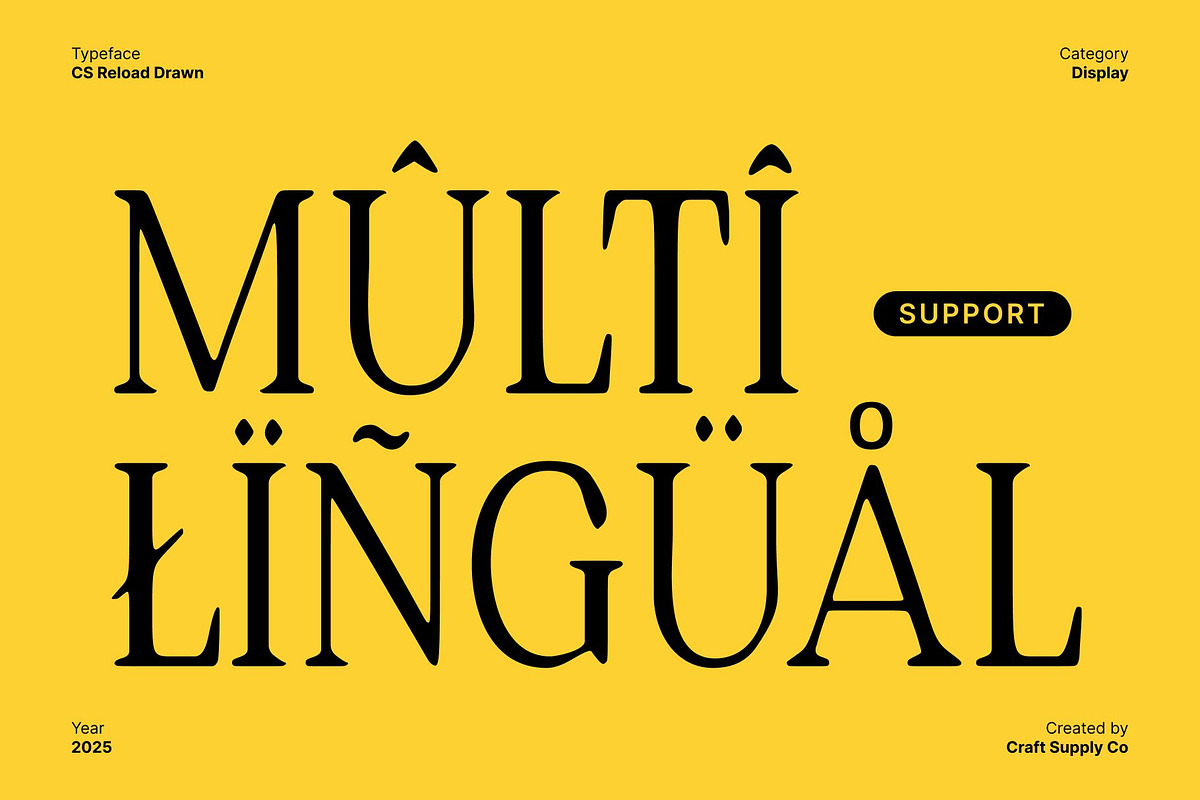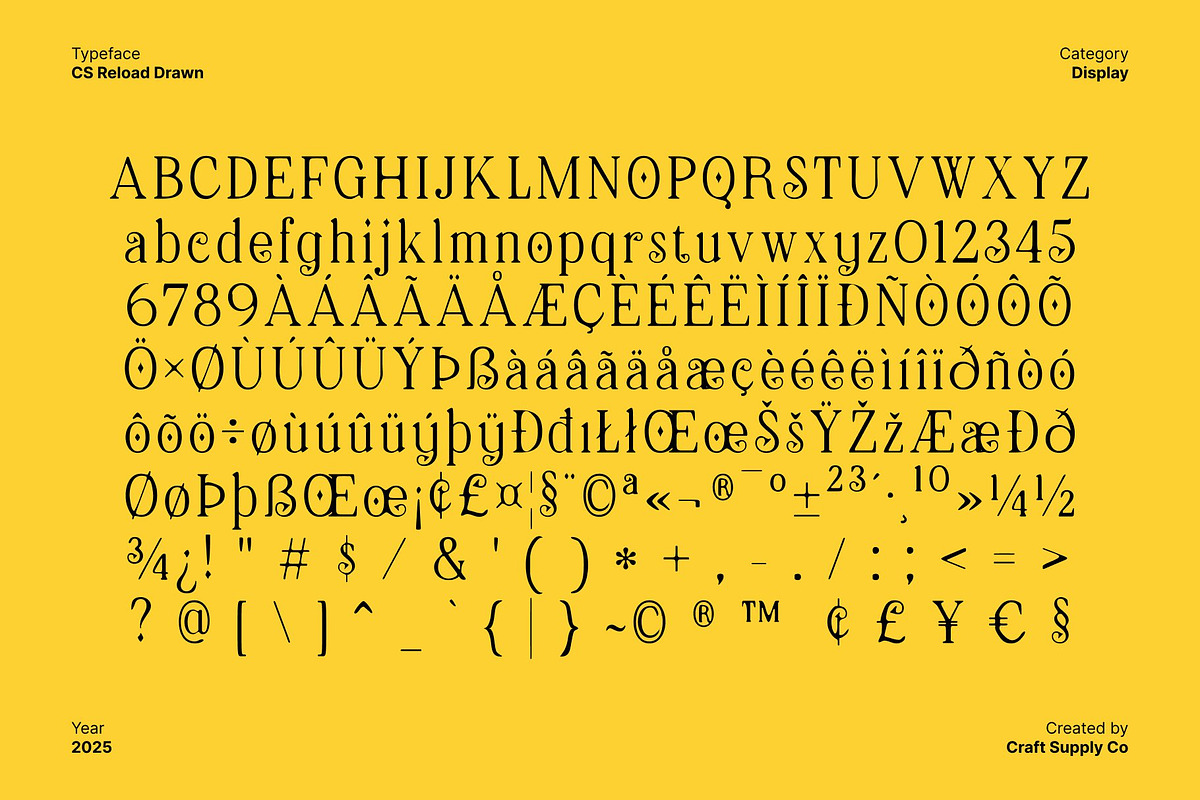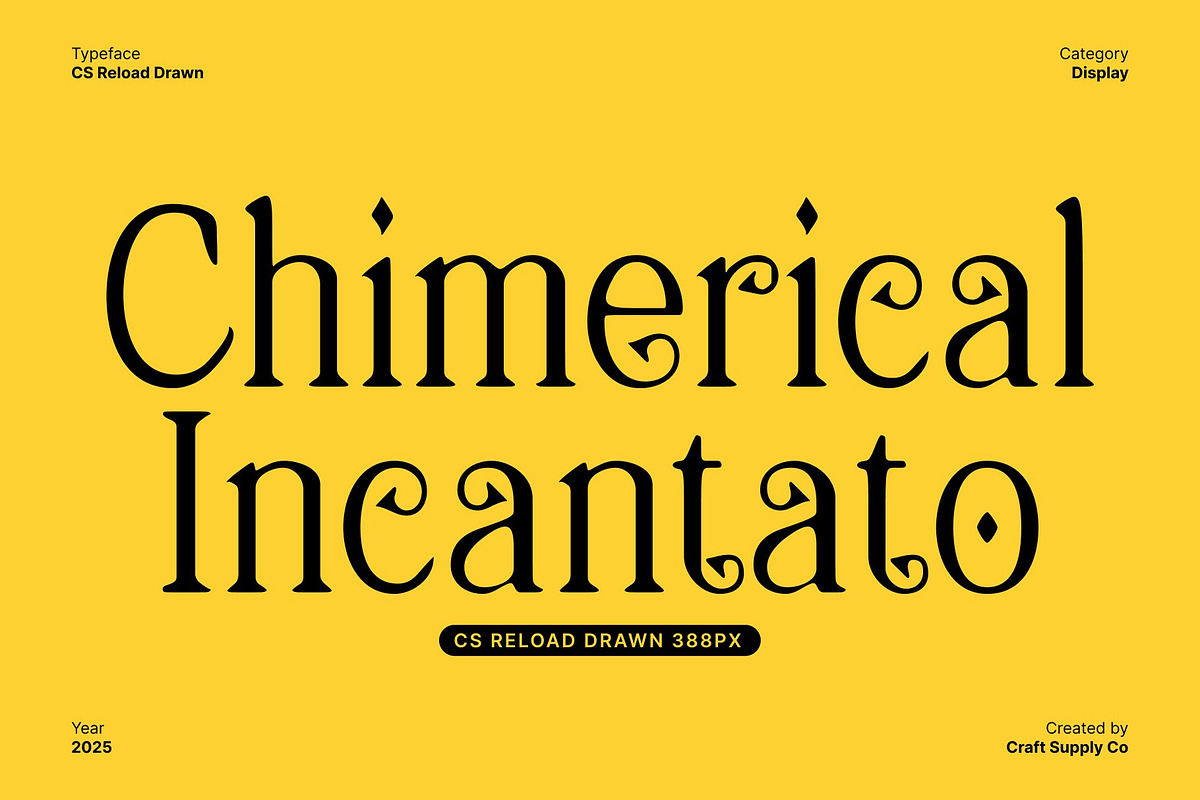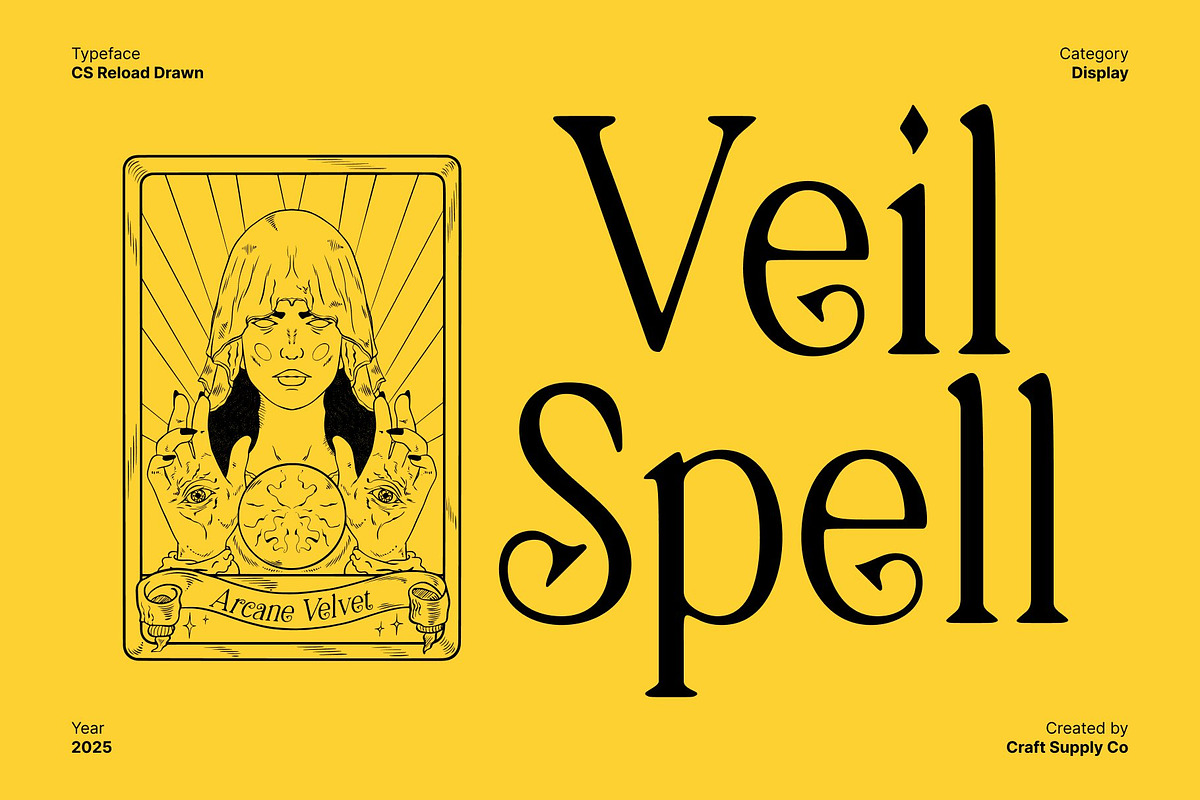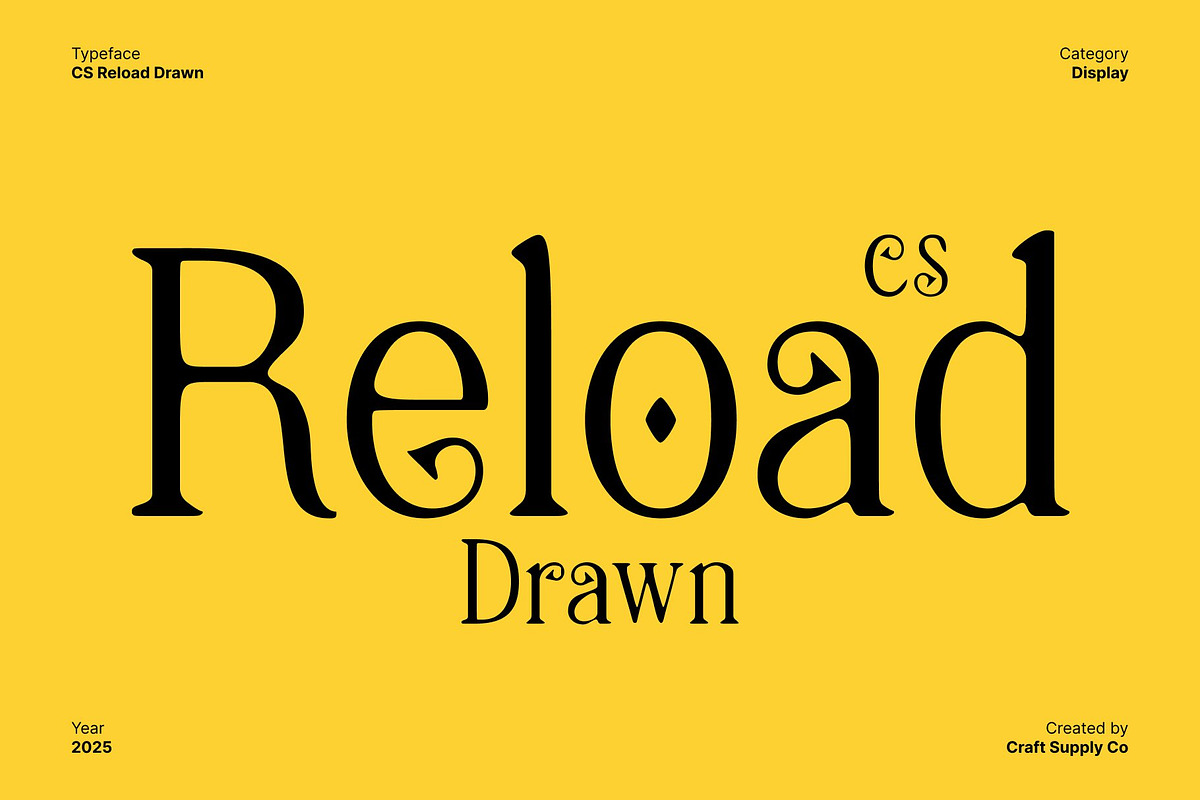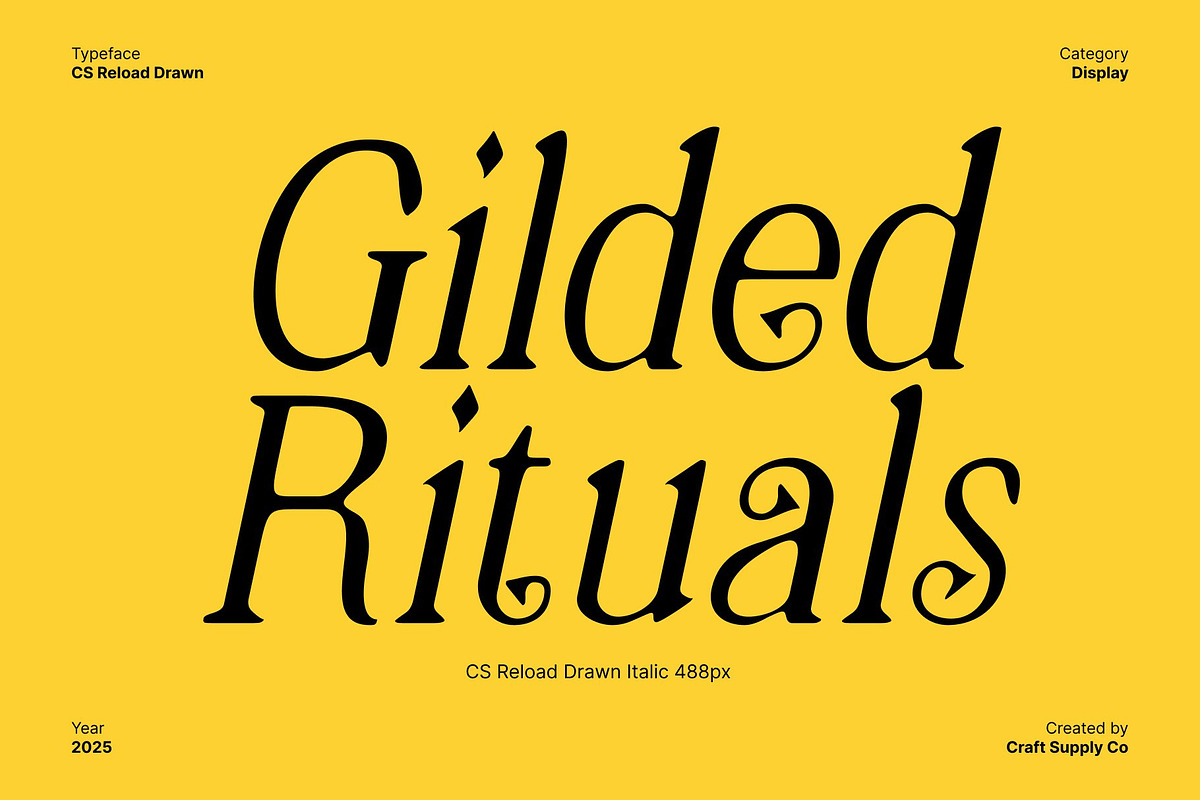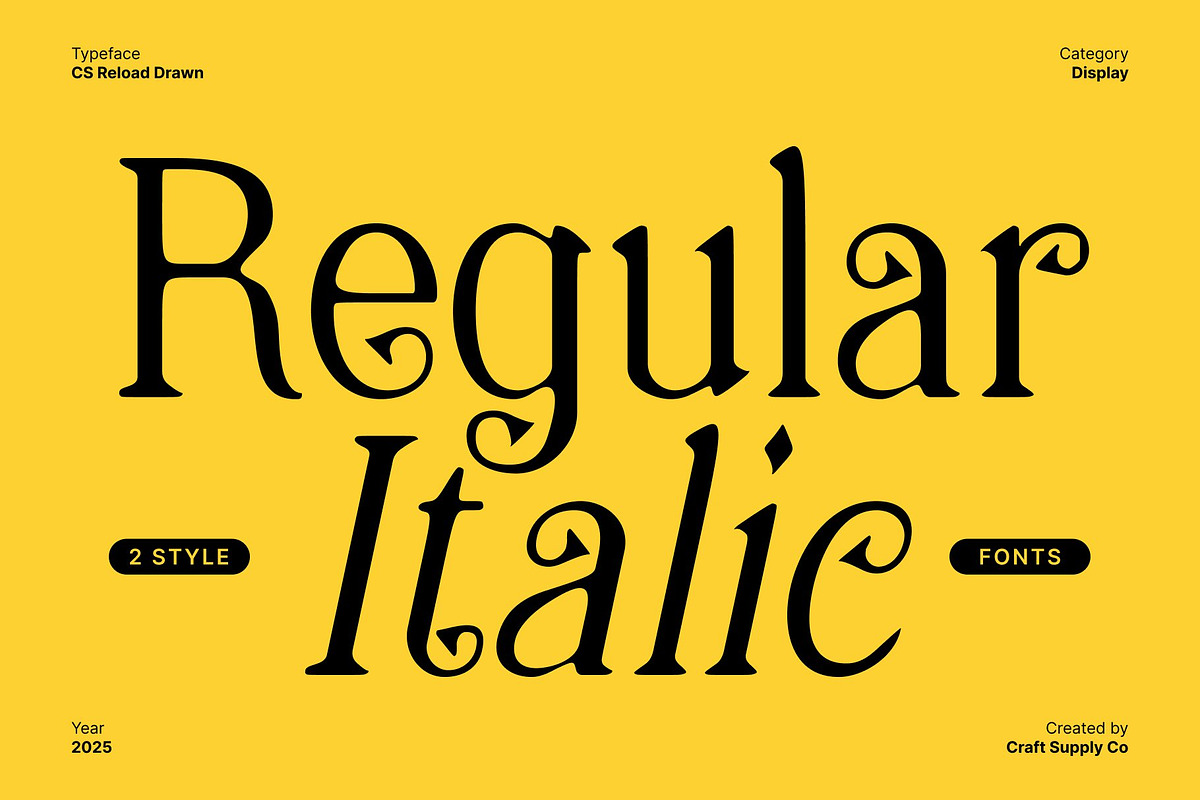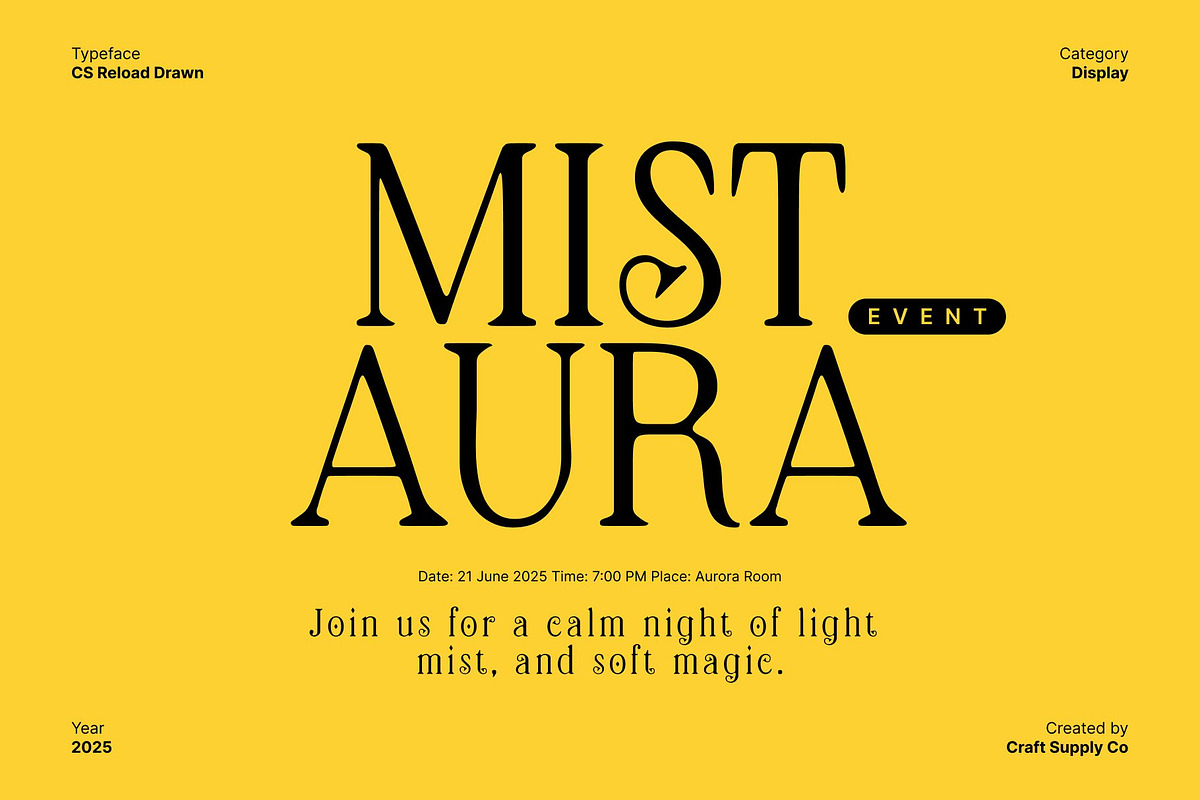
CS Reload Drawn
CS Reload Drawn – Fantasy Display Serif with Playful Drawn Texture
Charming Letterforms with Playful Elegance Infused with fantasy charm, this display serif font features playful details and expressive shapes that instantly feel magical and unique. Its imaginative letterforms balance elegance with creativity, creating an aesthetic presence that feels lively, decorative, and full of personality. Each character carries a sense of wonder, making the font visually captivating and emotionally engaging.
Drawn Texture for Artistic Personality The drawn texture adds a handcrafted, organic layer that enhances the font’s charm. Subtle imperfections bring warmth and individuality, giving the typography an artistic, personal feel. This texture softens the serif structure and helps the font feel approachable while remaining visually distinctive and expressive.
Perfect for Whimsical Branding, Posters, and Music Visuals Ideal for whimsical branding, creative posters, album artwork, music visuals, and imaginative editorial projects, this font shines in designs that celebrate creativity and storytelling. Its decorative nature ensures strong visual impact while maintaining an inviting and playful tone.
Magical, Aesthetic, and Visually Expressive By blending fantasy-inspired serif forms with a playful drawn texture, this font delivers a unique typographic experience. It’s the perfect choice for designers seeking an aesthetic, energetic, and imaginative font that brings character, charm, and artistic flair to every creative project.
- CS Reload Drawn Regular
- CS Reload Drawn Italic